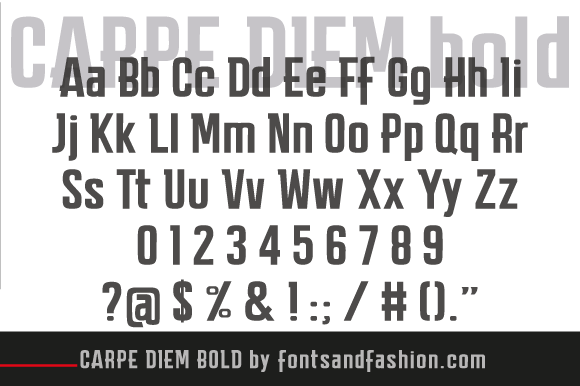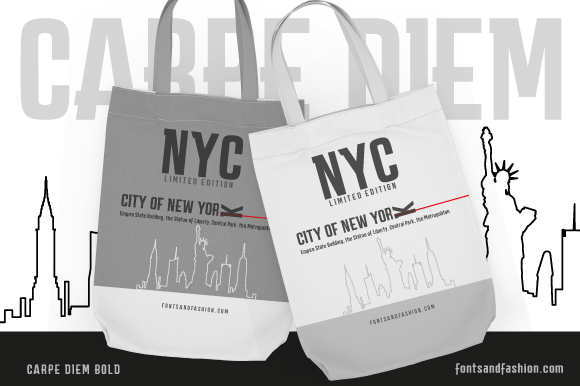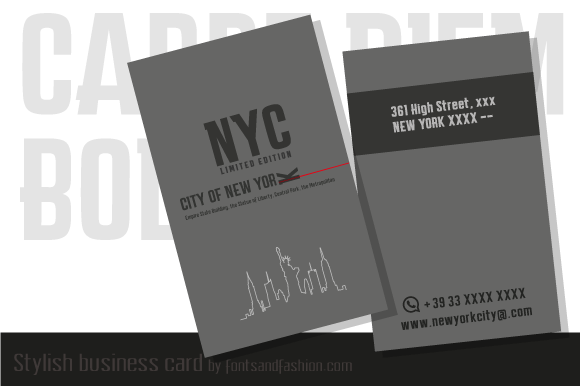
Seize the Moment with Style: Introducing Carpe Diem Bold Font
Have you ever found yourself staring at a blank canvas, feeling stuck and unsure of where to start? That’s when the magic happens. The spark of creativity ignites, and you’re suddenly flooded with ideas and inspiration. It’s a feeling that’s hard to describe, but it’s one that every designer knows all too well.
When you’re in that creative flow, the right tools can make all the difference. That’s where Carpe Diem Bold Font comes in – a modern and linear font that’s designed to make a statement. With 422 glyphs at its disposal, this font is perfect for designers who want to add a touch of sophistication and style to their work. Whether you’re creating a logo, a brochure, or a website, Carpe Diem Bold Font is the perfect choice to give your design a firm visual impact.
Key Features of Carpe Diem Bold Font
- Font Family: Carpe Diem Bold, a unique and elegant font designed for modern designs.
- Font Size: Offers a wide range of font sizes, from 8pt to 72pt, catering to various design requirements.
- Resolution: Optimized for high-resolution displays, ensuring crisp and clear text even at large sizes.
- Unique Characteristics: Distinctive letterforms, subtle flair, and a touch of elegance make Carpe Diem Bold a standout font.
Designer Review: Carpe Diem Bold Font
When I first laid eyes on Carpe Diem Bold Font, I was immediately struck by its bold and energetic personality. ✨ The font’s chunky lines and geometric shapes give it a modern and edgy feel that’s perfect for making a statement in design. ✨ I love how it can be used to convey confidence and enthusiasm, making it ideal for headlines and titles.
However, there are a few limitations to consider. ⚠️ Firstly, the font’s boldness can sometimes come across as overpowering, making it difficult to read in smaller sizes. ⚠️ Additionally, the font’s geometric shape can make it challenging to pair with other fonts that have more organic or rounded lines.
- ✨ Modern and edgy design
- ✨ Perfect for making a statement in design
- ✨ Ideal for headlines and titles
- ⚠️ Can be overpowering in smaller sizes
- ⚠️ Challenging to pair with other fonts
Overall, I think Carpe Diem Bold Font is a great choice for designers who want to add a bold and energetic touch to their designs. However, it’s essential to use it thoughtfully and in the right context to avoid overwhelming the viewer.
To get the most out of Carpe Diem Bold Font, consider the following tips:
- Use it sparingly to create emphasis and highlight important information.
- Pair it with other fonts to create a visually appealing typography.
- Experiment with different font sizes and colors to create contrast and hierarchy.
Carpe Diem Bold Font is commonly used in:
- Headlines and titles to create emphasis.
- Call-to-actions to encourage engagement.
- Brand identity elements, such as
Alternatives to Carpe Diem Bold Font for Designers
Lato Bold Font
Lato Bold Font is a sans-serif font that is highly legible and versatile. It is ideal for use in titles, headings, and body text where a bold and modern look is desired. When to use: For modern and minimalist designs, particularly in digital media. Compared to Carpe Diem Bold Font, Lato Bold Font has a more geometric and clean appearance, making it suitable for a wider range of applications.
Montserrat Bold Font
Montserrat Bold Font is a sans-serif font designed for urban environments. It is highly legible and works well in small sizes. When to use: For modern and urban designs, particularly in print media. Compared to Carpe Diem Bold Font, Montserrat Bold Font has a more condensed and geometric appearance, making it ideal for use in tight spaces.